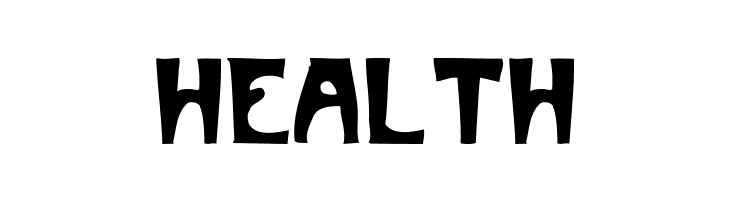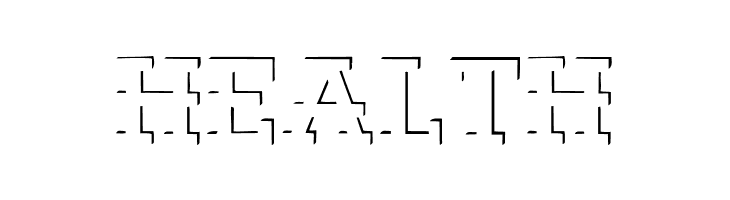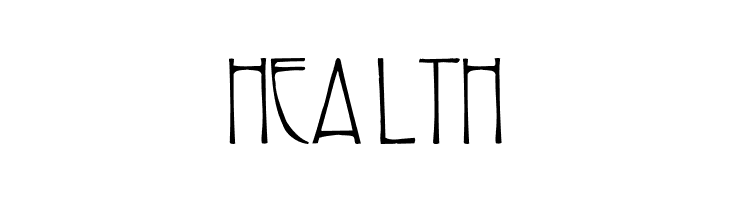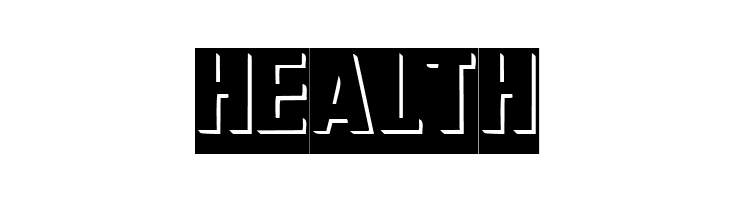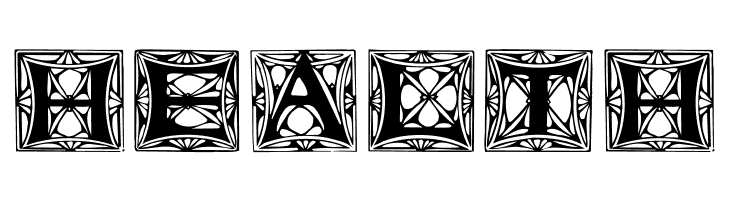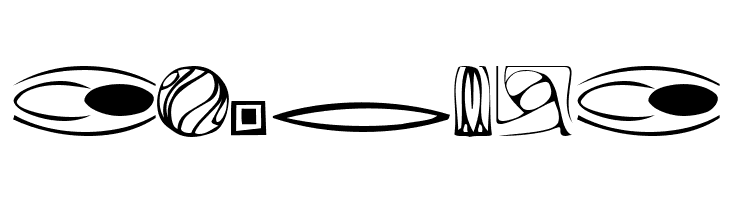
A bold, sketch-like font with a playful and dynamic style.
A bold, hand-drawn font with a textured, artistic style.
A bold, italic, hand-drawn font with dynamic strokes and a playful style.
An elegant script font with flowing, calligraphic letterforms and intricate swashes.
A bold, italic, and extended decorative font with high contrast and tight spacing.
A bold, italic serif font with dynamic, angular serifs and a strong presence.
A bold, dynamic font with sharp serifs and a strong presence.
A bold, condensed serif font with dramatic, angular serifs and a vintage-modern appeal.
An ornate and decorative typeface with intricate flourishes.
A bold, decorative font with a starburst pattern filling each character.
An artistic font with high contrast and dynamic strokes, ideal for modern designs.
A sophisticated, high-contrast font with elegant, elongated strokes.
An elegant, decorative font with intricate curves and a classic calligraphic style.
A bold, condensed font with tall, striking letterforms and a vintage-modern appeal.
A sleek, elongated font with narrow, minimalistic letterforms.
A modern, ultra-thin font with elongated, narrow characters.
A bold, condensed font with tall, narrow characters and a modern aesthetic.
A whimsical and artistic collection of decorative symbols with diverse motifs.
A classic serif font with high contrast and elegant, sharp serifs.
An elegant italic font with high contrast and elongated serifs.
A bold, explosive font with a fragmented, dynamic design.
A playful, bold, and italicized handwritten font with smooth, rounded strokes.
A bold, playful font with rounded edges and a casual, handwritten style.
A bold, balloon-like font with rounded, playful characters.
A bold, playful font with thick, rounded strokes and a hand-drawn feel.
A playful, handwritten font with rounded, bold letterforms.
A playful handwritten font with irregular strokes and a whimsical appearance.
A bold, playful font with rounded, hand-drawn characters.
A playful, handwritten font with bold, irregular strokes and a casual style.
A playful, balloon-like font with rounded, bold characters.
A playful handwritten font with smooth curves and a casual style.
A bold, geometric font with a 3D stencil effect, ideal for impactful designs.